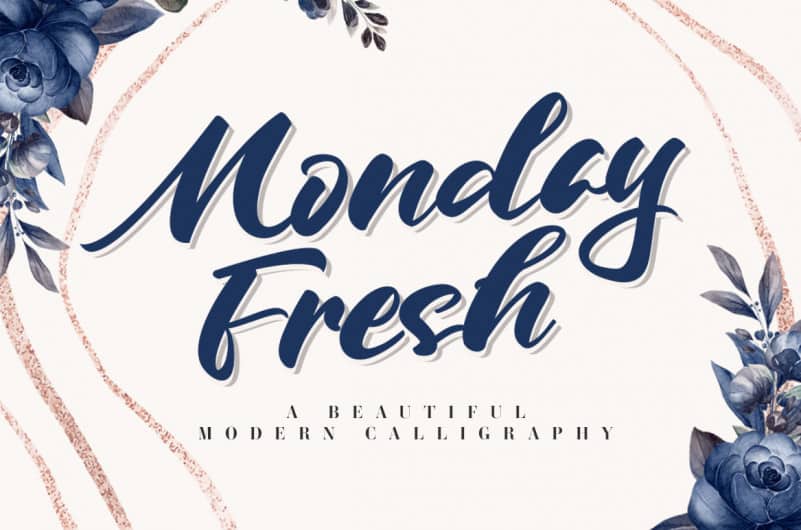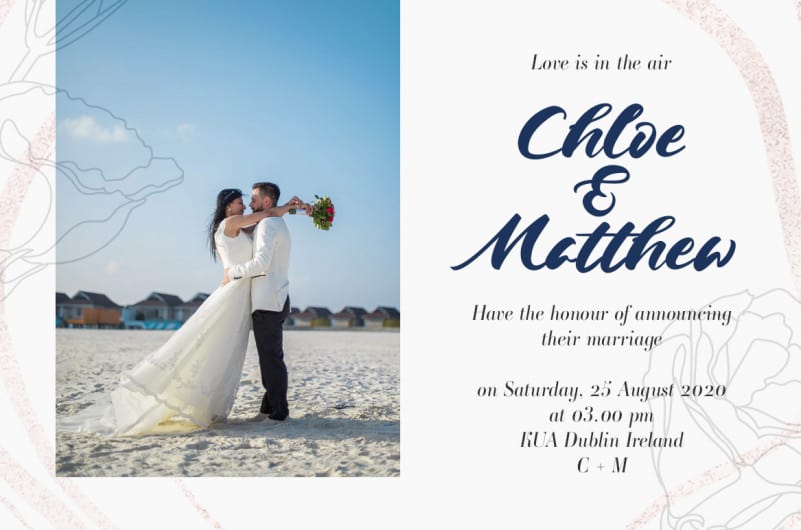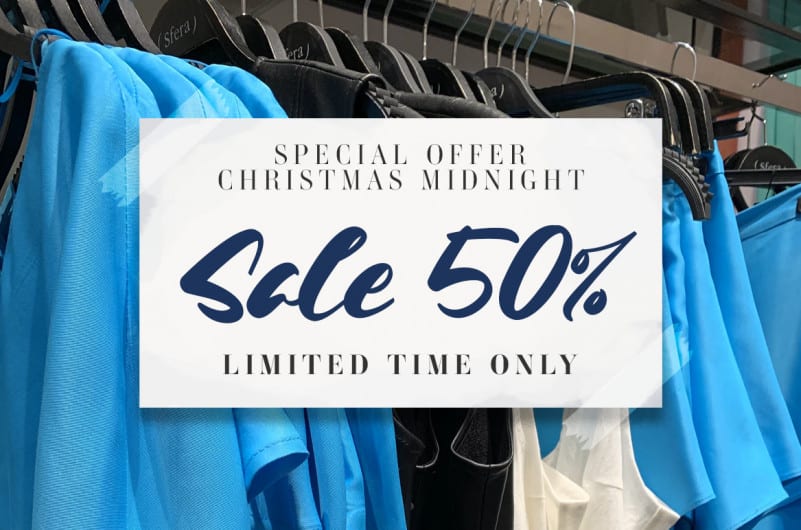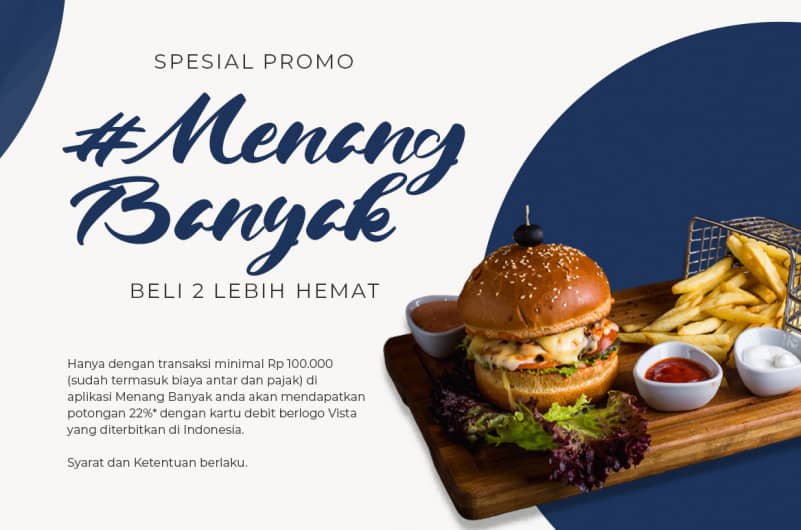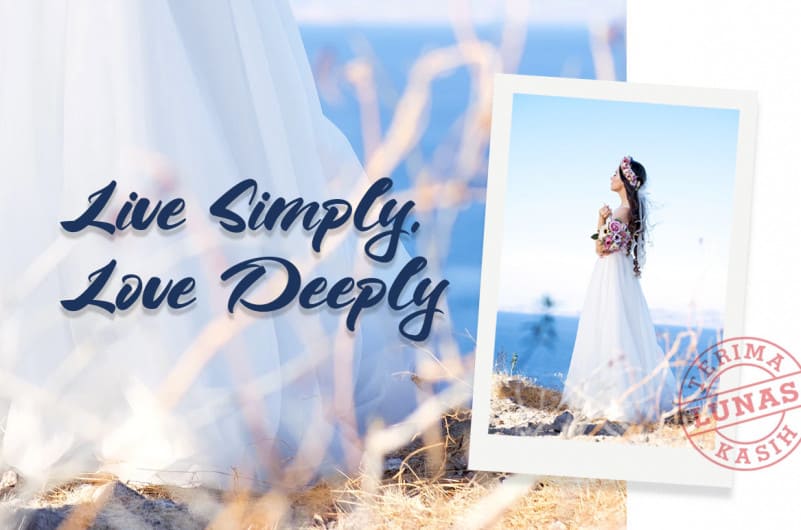
Monday Fresh Calligraphy Font
Proudly Present, Monday Fresh Calligraphy Font
Monday Fresh is a Modern Calligraphy font.
Perfect for product packaging,  branding project,  megazine,  social media,  wedding,  or just used to express words above the background.